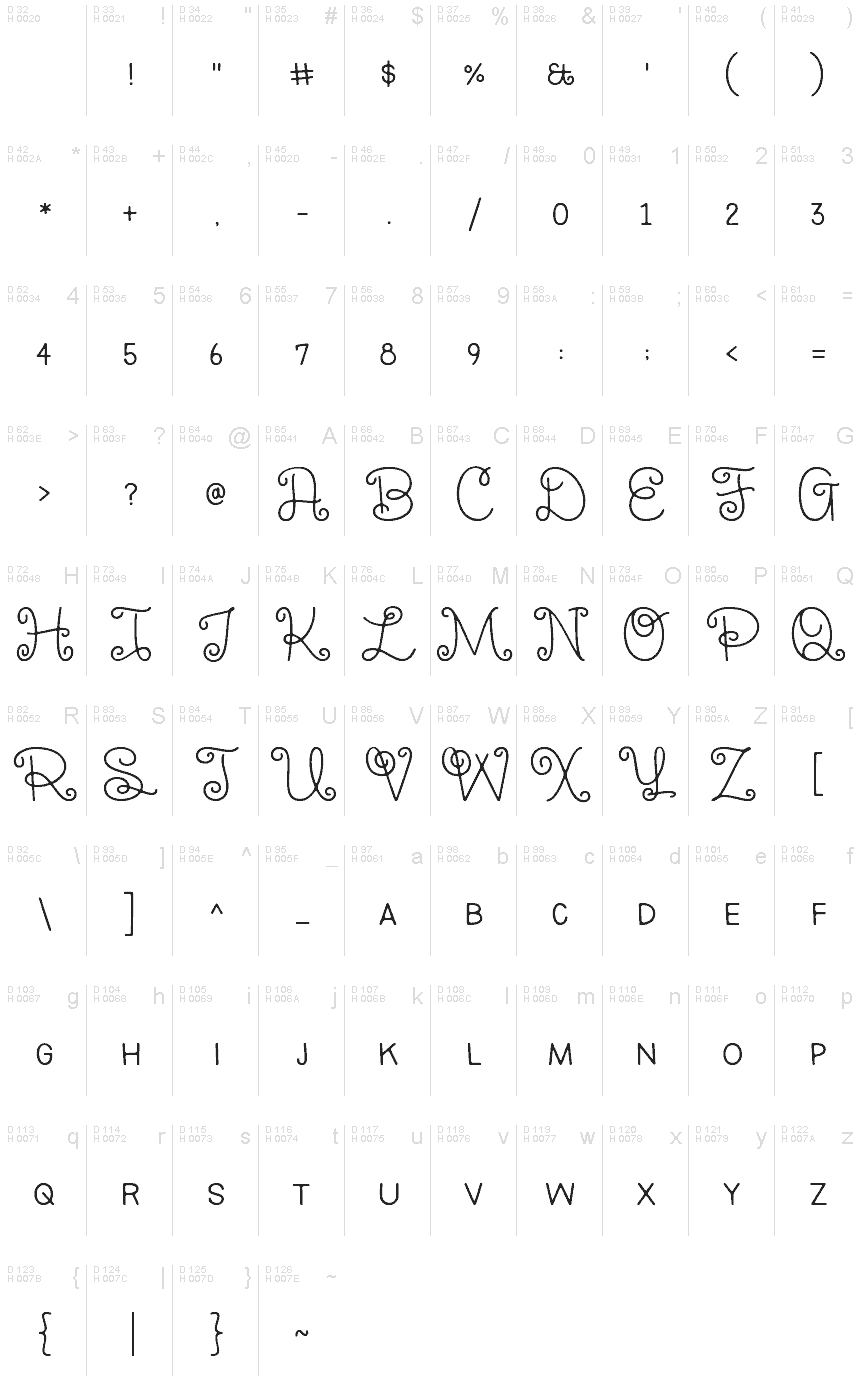
Vanilla Swirl Regular
Vanilla Swirl font is a whimsical and ornate creation by Brittney Murphy Design, which displays elegant and artistic flair. Expressive at its core, this pretty font presents an almost calligraphic look on the screen with curls that breathe life into every character and word. Although originally designed for display use, it also gracefully works in other environments designed in either physical or digital copy.
This free beautiful font can be the right selection to bring any of these projects to life: Disney movie posters, inspirational quote videos on Instagram Reels or TikTok, wedding invitations, marriage certificates, magazine articles focused on healthy living topics such as yoga or meditation.